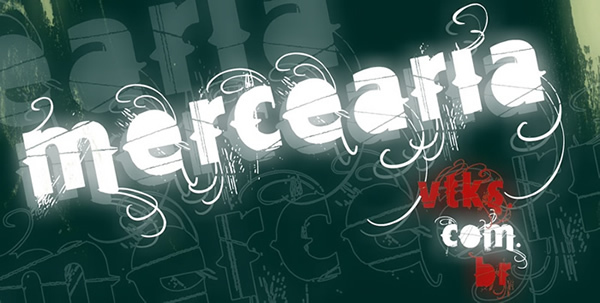
Vtks Mercearia by Douglas Vitkauskas is a free eroded display font built from heavy, irregular letters and sweeping flourishes. Scraped patches and rough edges give the forms a worn, scuffed surface, while curls weave through the lettering with a hand-drawn looseness.
Its mix of grunge lettering and ornamental scrollwork suits rock posters and alternative music merchandise. It can also lend fashion packaging or event graphics a rough, custom-marked look rather than a clean commercial finish. The curling strokes make the type feel closely tied to tattoo art and illustrated emblems.